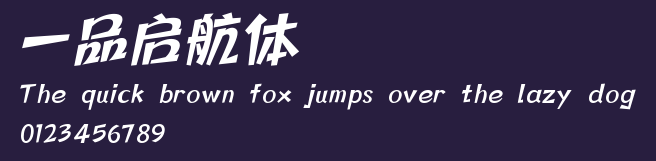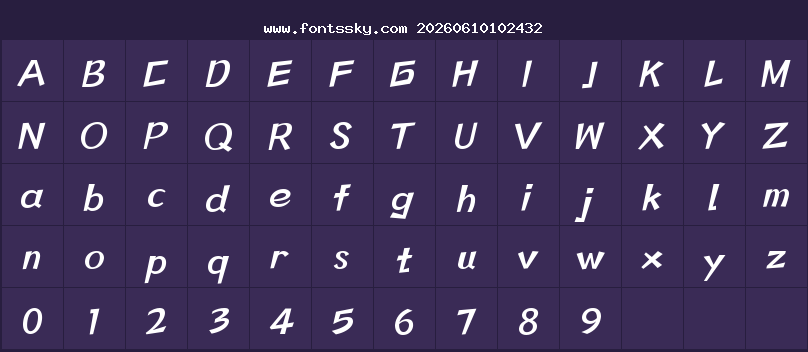
一品启航体 Preview
• Font Name: 一品启航体
• Full Font Name: 一品启航体
• PostScript Name: YiPinQiHangTi-Regular
About 一品启航体.ttf
一品启航体.ttf is a modern, elegant sans-serif font designed for ultimate readability and visual harmony. Perfect for branding, headlines, web design, and print materials.